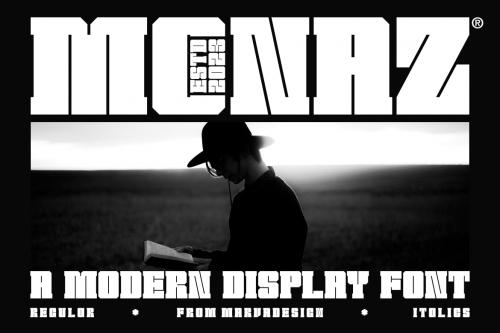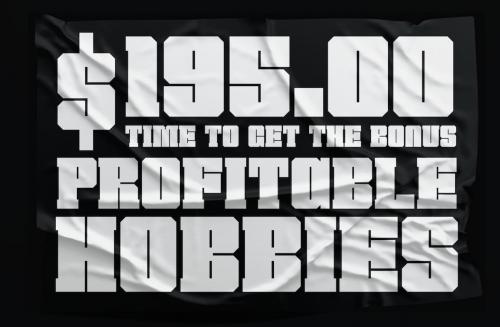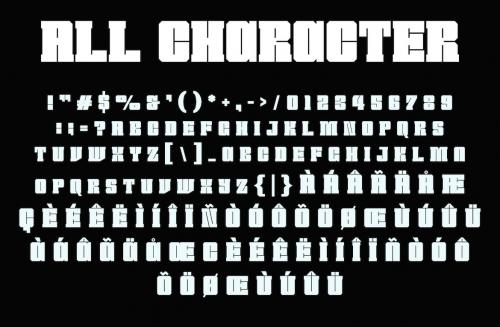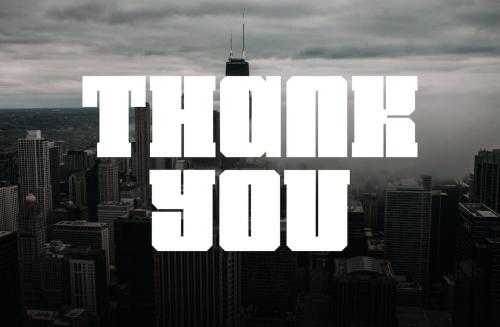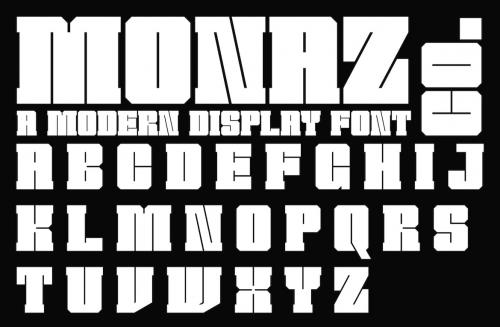
Monaz Font
Introducing our new product **Monaz Font** - Modern Font is a bold and authentic display font. The font is suitable for any branding project like logo, Template Design, Product and many more. outstanding in a wide range of contexts.
Introducing our new product **Monaz Font** - Modern Font
**Monaz Font** - Modern Font is a bold and authentic display font. The font is suitable for any branding project like logo, Template Design, Product and many more. outstanding in a wide range of contexts.
* Uppercase
* Lowercase
* Multilingual
* Regular & Italic